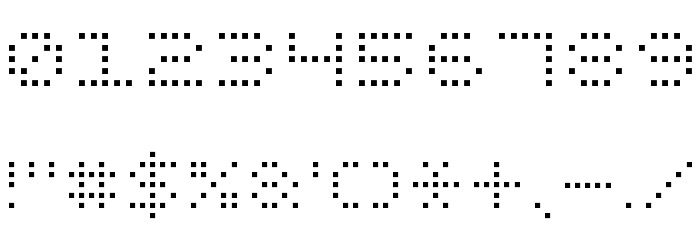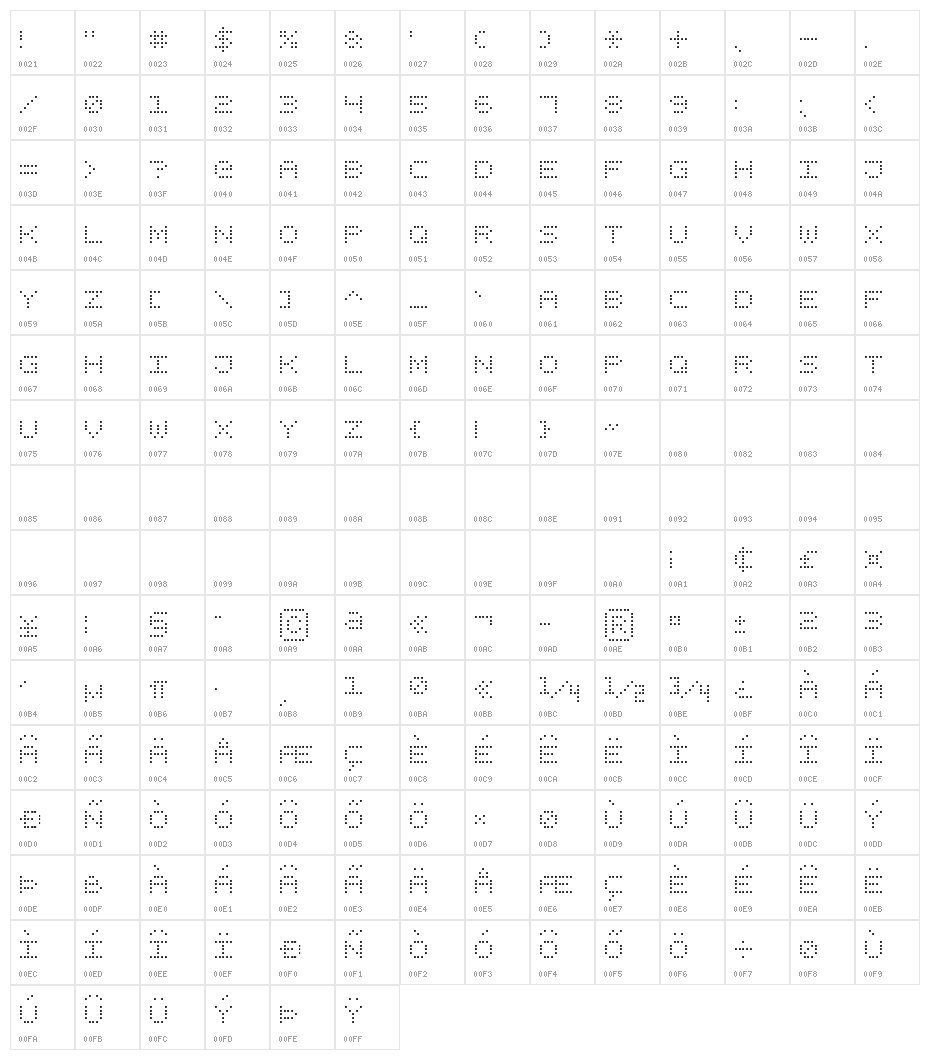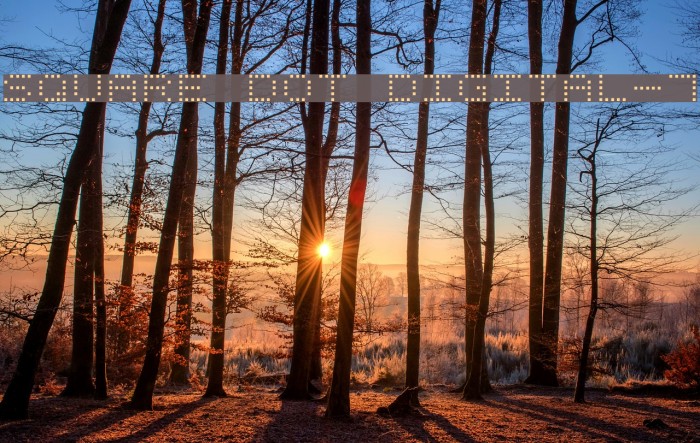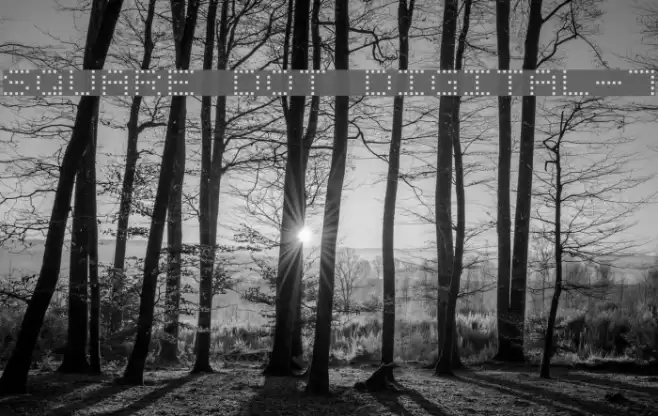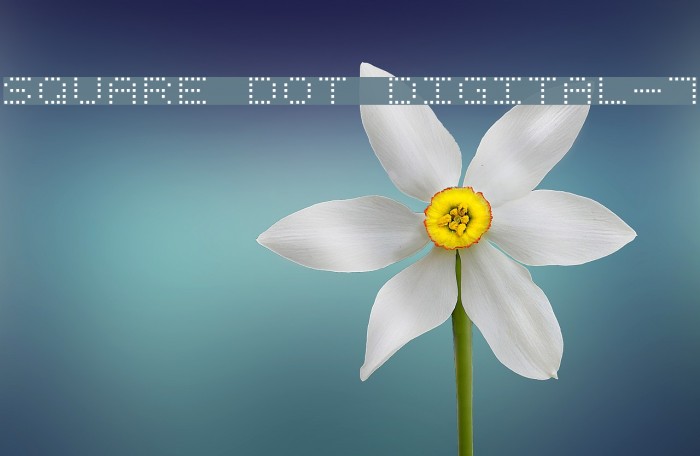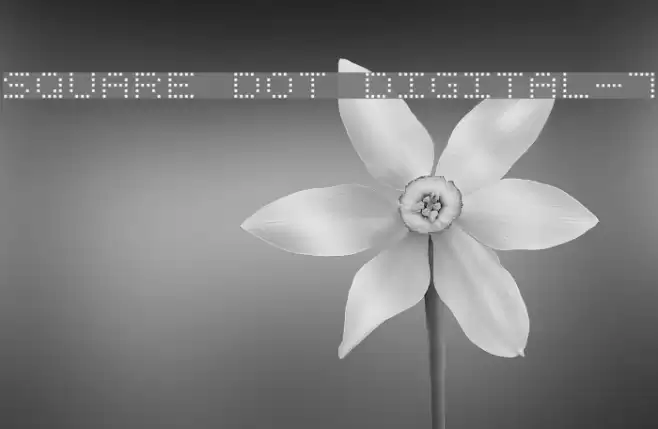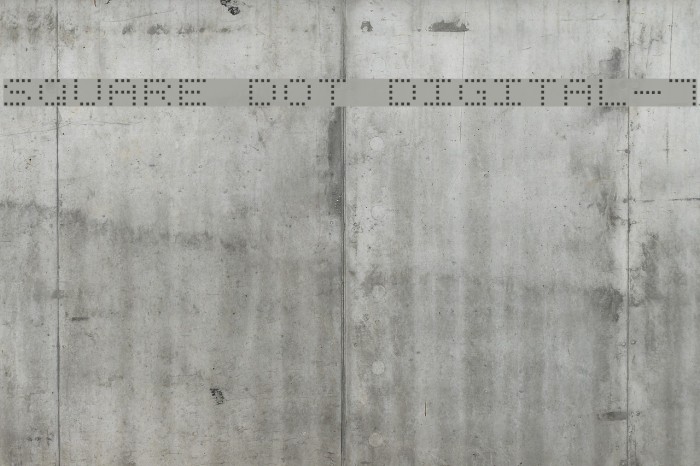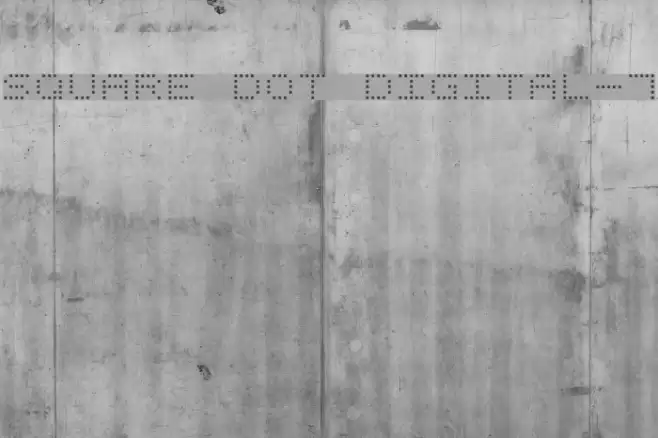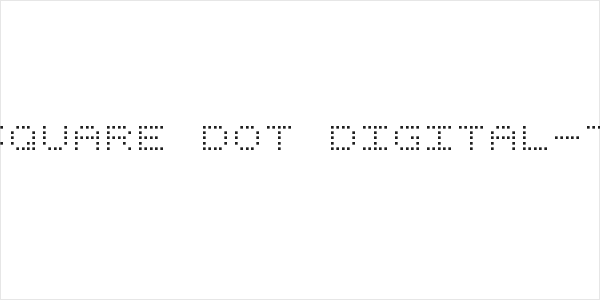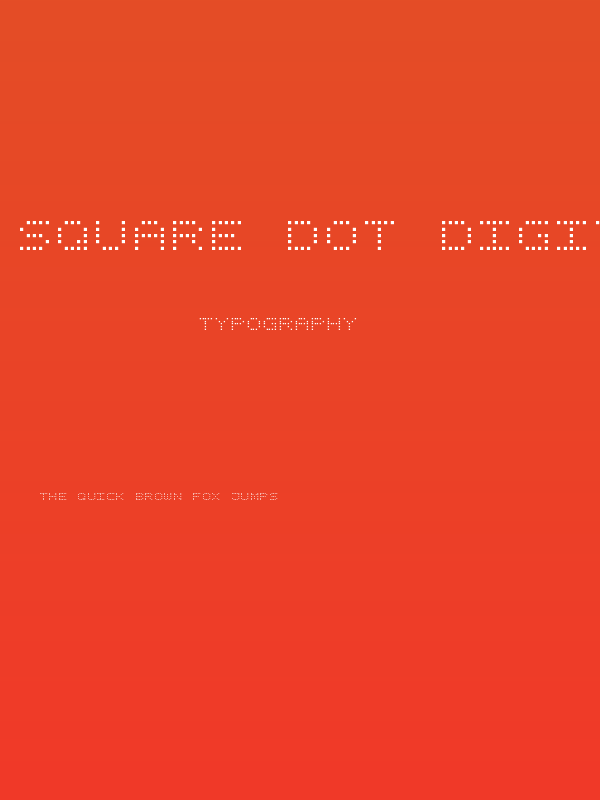
Square Dot Digital-7 Font
Square Dot Digital-7 Description
This font features a distinctive digital style composed of small square dots forming each character. The design is reminiscent of old digital displays, offering a retro and technological feel. Each letter and number is constructed with precision, maintaining uniformity across the set. The spacing between the dots is consistent, creating a cohesive and readable appearance. This font is particularly suitable for projects that aim to evoke a sense of nostalgia or a digital aesthetic. The characters are evenly spaced, ensuring clarity and legibility even at smaller sizes.